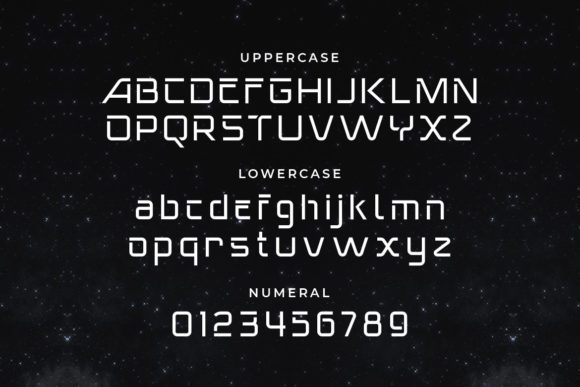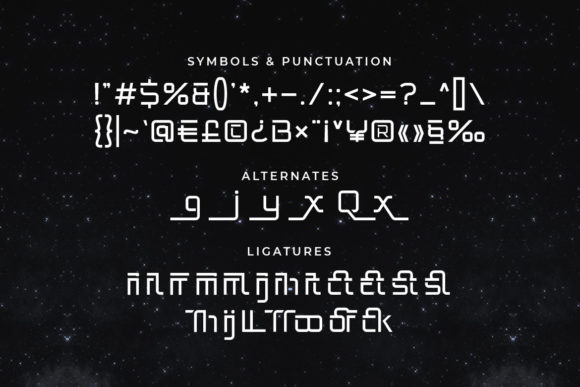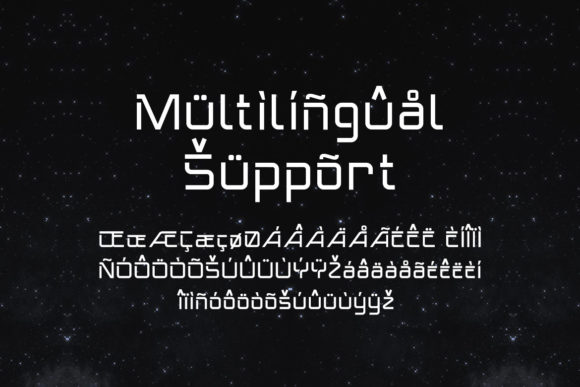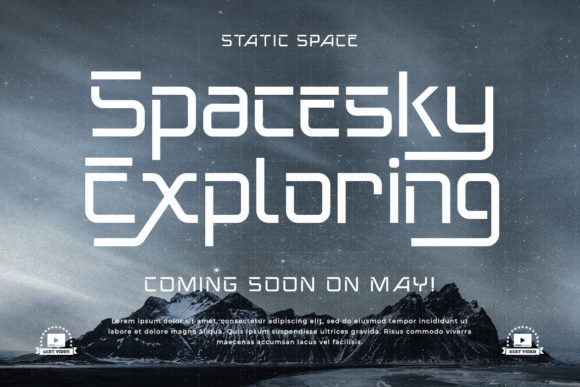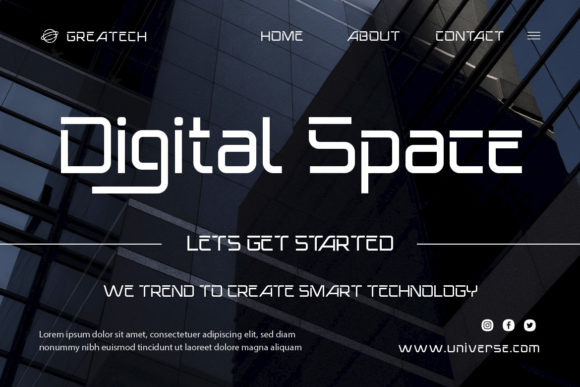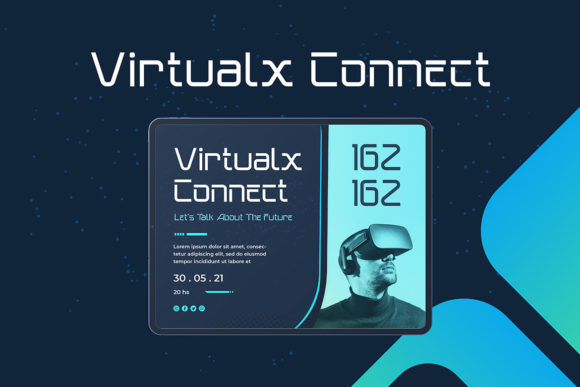
The Ultimate Tech-Inspired Font: A Deep Dive into Blackold
I’ll never forget the moment I was working on a futuristic game design project, and I just couldn’t find the right font to bring my vision to life. My client wanted something sleek, modern, and downright cool. That’s when I stumbled upon Blackold, a tech-inspired display font that instantly elevated my design. In this article, I’ll share my experience with Blackold, its features, and how to make the most of it in various design platforms.
An Honest Review of Blackold
What I Love About Blackold ✨
- 💻 **Futuristic feel**: Blackold’s sleek lines and geometric shapes give it a distinctly futuristic vibe that’s perfect for tech-themed designs.
- 🔍 **PUA encoded**: The font’s PUA (Private Use Area) encoding means you can access all glyphs and swashes with ease, making it a breeze to customize your designs.
- 🎨 **Highly versatile**: Blackold is suitable for a wide range of projects, from game design to computer-themed posters, logos, and more.
- 👍 **Easy to read**: Despite its futuristic look, Blackold remains surprisingly legible, even at smaller font sizes.
While Blackold is an excellent font, there are a few minor quirks to be aware of:
- 🤔 **Limited use for body text**: Due to its bold and futuristic design, Blackold might not be the best choice for lengthy body text. Stick to headings, titles, and short paragraphs for optimal impact.
- ⚠️ **Some glyphs require manual adjustment**: While PUA encoding makes it easy to access glyphs, some may require manual adjustment to fit perfectly within your design.
The Story Behind Blackold
Blackold was designed with the tech-savvy designer in mind. Its creator, a passionate typographer, aimed to craft a font that would instantly convey a sense of innovation and futurism. Inspired by cutting-edge technology and sleek digital interfaces, Blackold was born as a versatile and attention-grabbing display font.
A: PUA (Private Use Area) encoding allows font creators to include additional characters, glyphs, and swashes that can be easily accessed by users. This means you can customize your designs with a wide range of unique characters.
Q: Is Blackold suitable for body text?
A: While Blackold is a beautiful font, it’s primarily designed for headings and titles. Its bold and futuristic design might make it less suitable for lengthy body text.